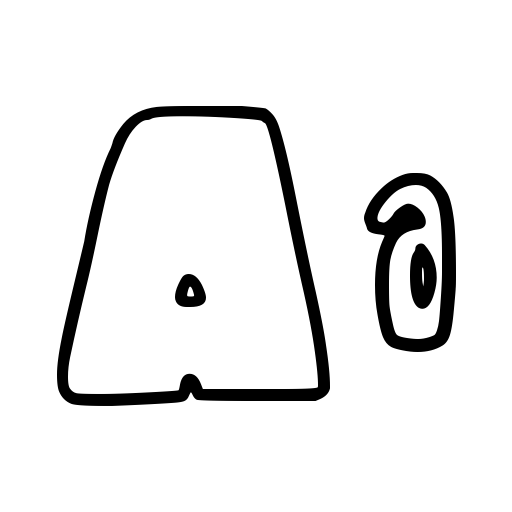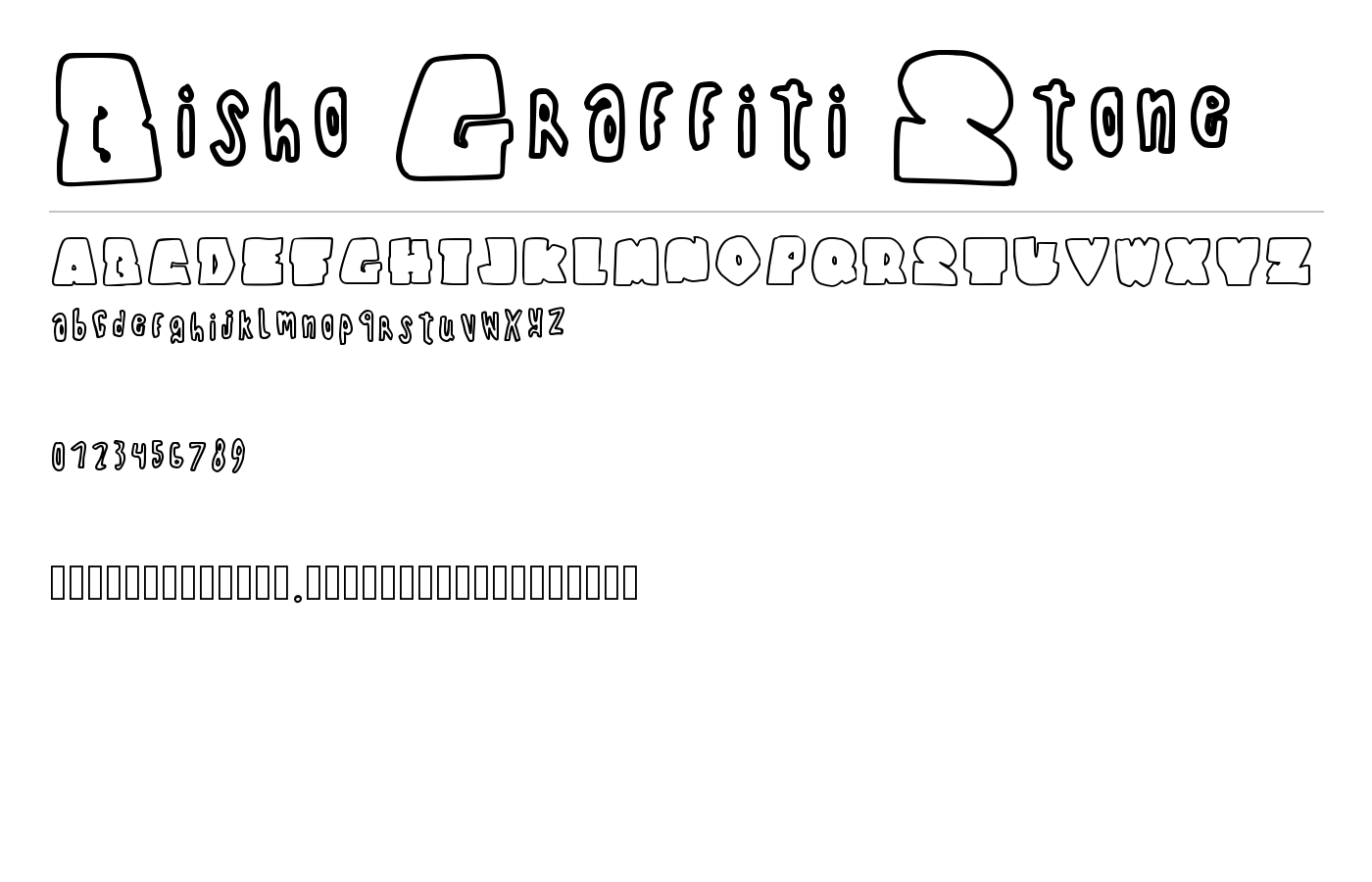
Bisho Graffiti Stone is a playful and bold display font featuring thick, blocky uppercase letters with a hand-drawn, graffiti-inspired style, paired with slender, quirky lowercase characters. This font exudes an informal, urban vibe perfect for creative, youthful designs such as posters, logos, and streetwear branding where a fun and expressive look is desired. Its unique shapes and artistic personality make it ideal for grabbing attention and adding a distinctive edge to casual and energetic projects.
Bisho Graffiti Stone Font
About Bisho Graffiti Stone Font